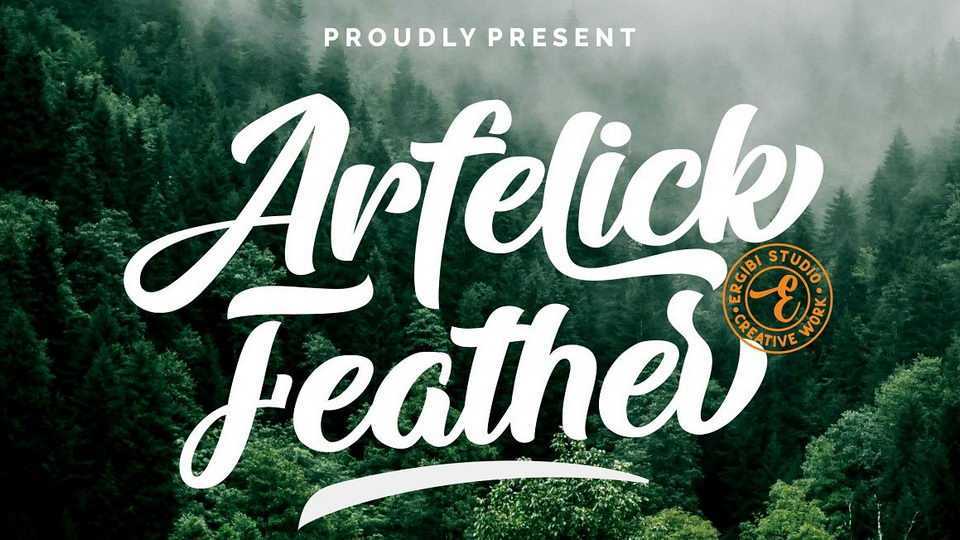
Arfelick Feather Script Font › Fontesk – Download Grátis
Download Arfelick Feather font, a bold connected script with a clear style and dramatic movement. Every single letter have been carefully crafted to make your designs looks better.